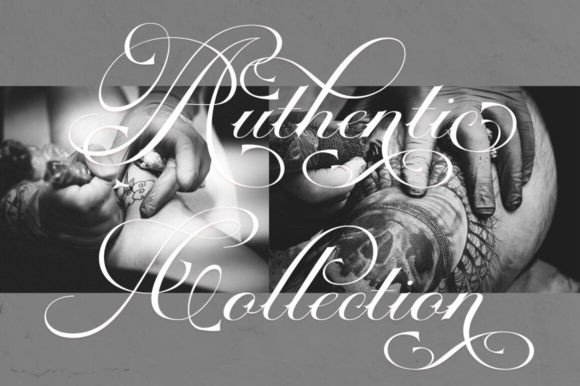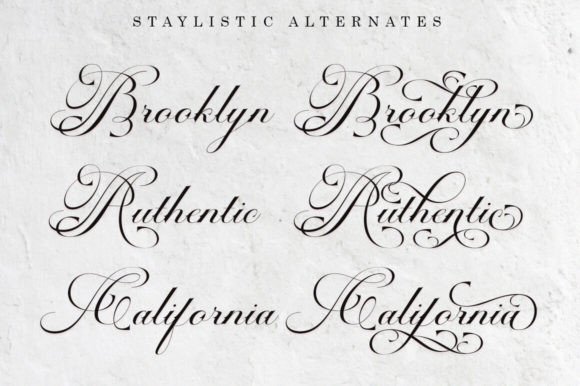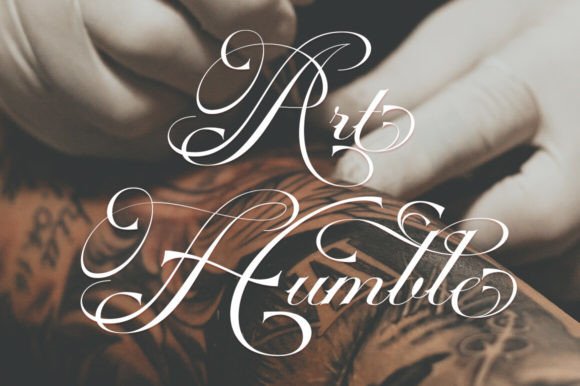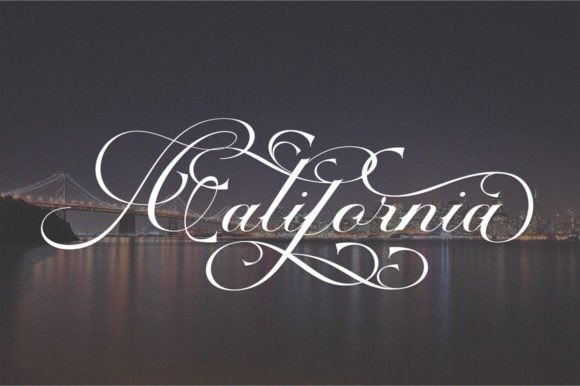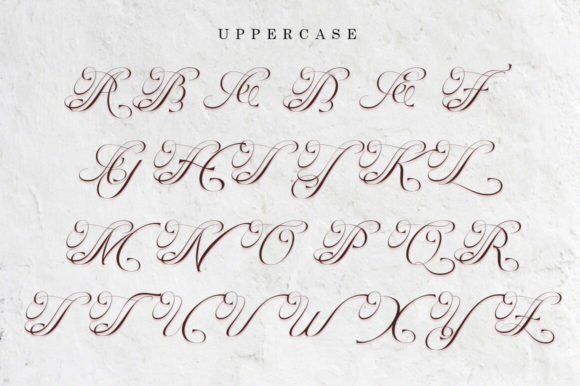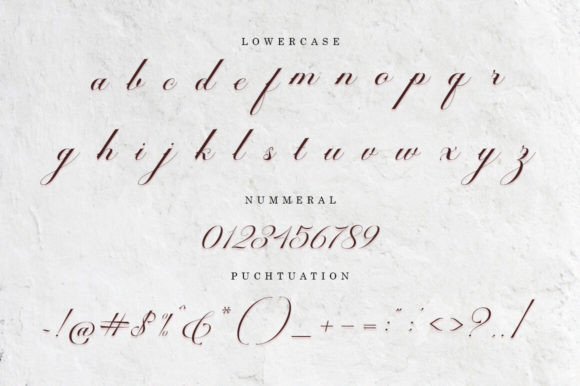
Introducing Cardilan Font: Unlock Endless Creative Possibilities
Are you a designer or crafter looking for a font that offers more than just the standard character set? Look no further than Cardilan Font, a versatile and feature-rich typeface that opens up a world of creative possibilities. In this article, we’ll explore the unique features of Cardilan Font and how it can elevate your design projects.
What is Cardilan Font?
Cardilan Font is a single font file that contains alternative characters within the font itself. This means that you don’t need to install multiple font files or switch between different fonts to access a range of characters. With Cardilan Font, you have everything you need in one convenient package.
Accessing Alternative Characters
One of the standout features of Cardilan Font is that it’s PUA (Private Use Area) encoded. This means that you can access all the amazing glyphs and ligatures with ease, without having to navigate complex character maps or switch between different fonts. With PUA encoding, you can focus on creating stunning designs, not wrestling with font files.
So, what kind of creative possibilities does Cardilan Font offer? With its extensive range of alternative characters, glyphs, and ligatures, you can create unique and eye-catching designs that stand out from the crowd. Whether you’re working on a branding project, crafting a social media graphic, or designing a beautiful piece of art, Cardilan Font gives you the flexibility to experiment and push the boundaries of your creativity.
Cardilan Font is perfect for designers and crafters who want to add an extra level of sophistication and elegance to their work. With its clean lines, beautiful curves, and extensive character set, this font is ideal for a wide range of design applications, from logos and branding to invitations, posters, and more.
Tips for Getting the Most Out of Cardilan Font
In conclusion, Cardilan Font is a versatile and feature-rich typeface that offers endless creative possibilities for designers and crafters. With its alternative characters, PUA encoding, and extensive glyph set, this font is perfect for anyone looking to elevate their design projects and add an extra level of sophistication and elegance. Whether you’re a seasoned designer or just starting out, Cardilan Font is definitely worth checking out.